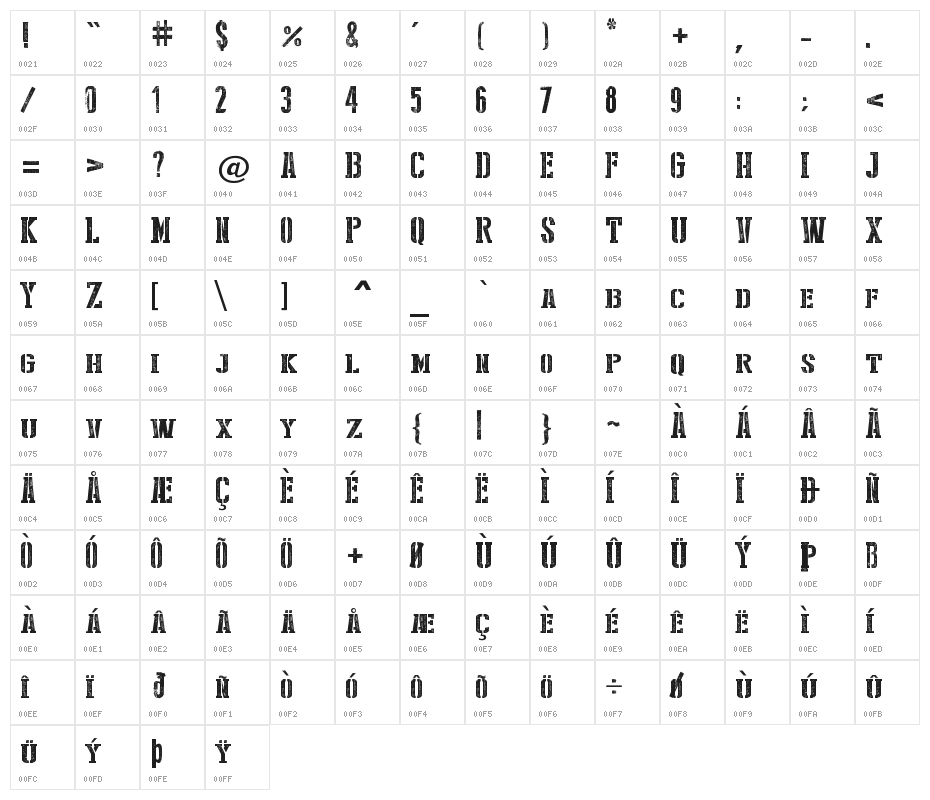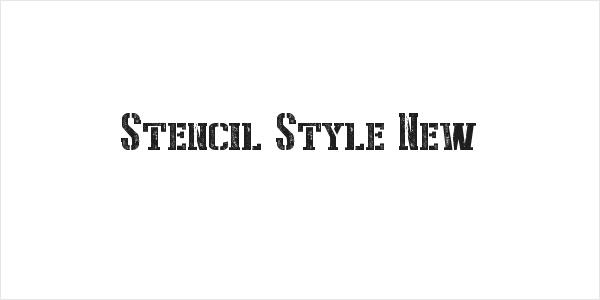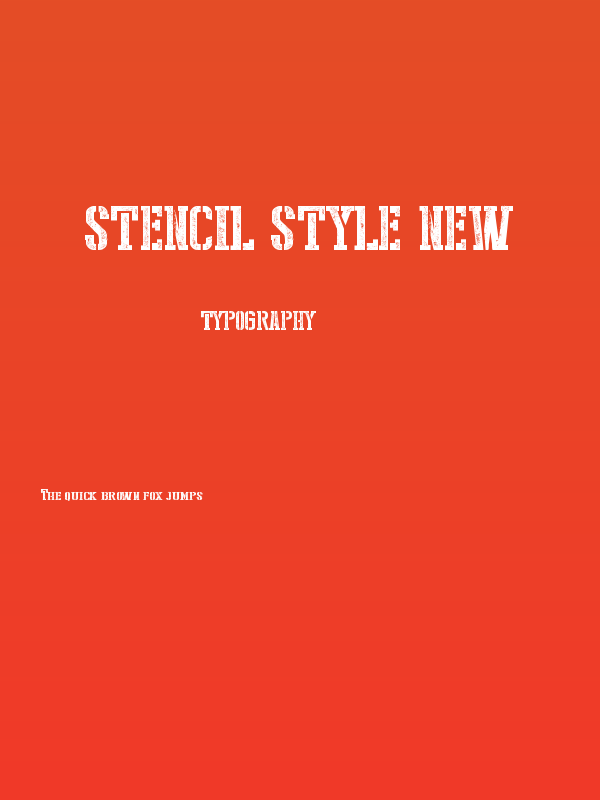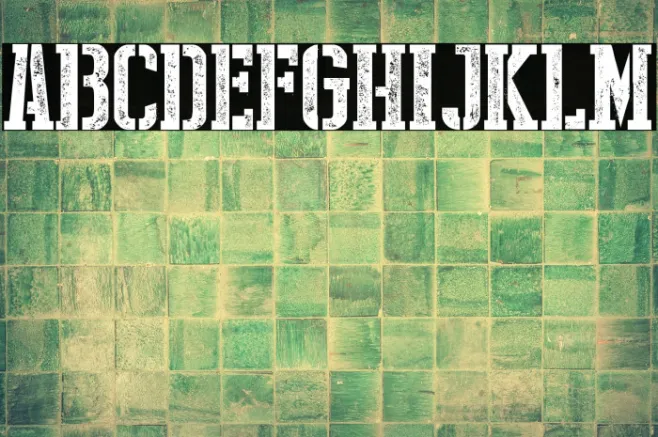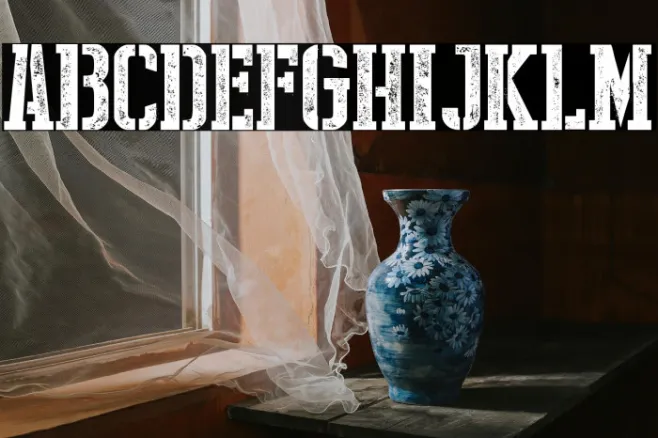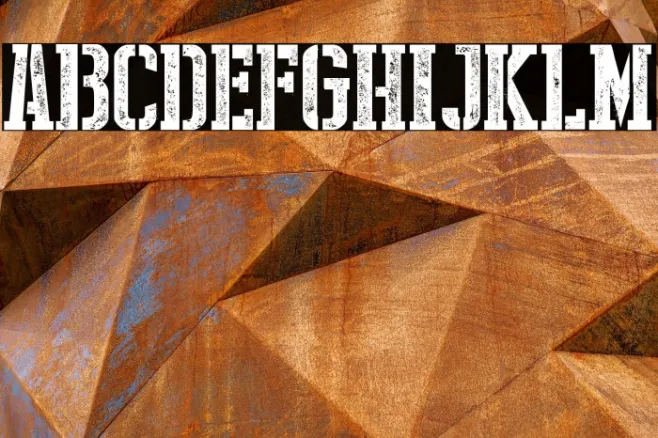
Stencil Style New Font
Stencil Style New Description
This font features a bold, stencil-inspired design with a distressed texture that gives it a rugged, industrial feel. The characters are robust and impactful, with thick strokes and a slightly uneven appearance that adds to its vintage charm. The uppercase letters are particularly striking, making them ideal for attention-grabbing headlines. The numbers and special characters maintain the same bold and textured style, ensuring consistency across all uses. This font is perfect for projects that require a strong, bold statement with a touch of grit and authenticity.
| Overall Style | Vintage, Industrial |
| Proposed Projects | Ideal for posters, logos, branding, and any design that requires a bold, vintage industrial look. |